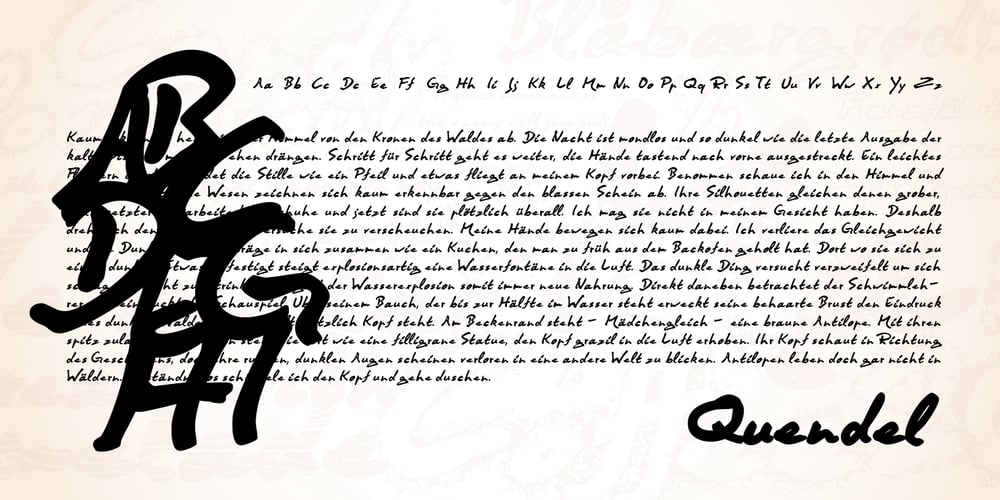
Quendel Font Family was designed by Anita Jürgeleit and published by URW Type Foundry. Quendel contains 6 styles and family package options. Quendel has been expanded to become Quendel Happy Family. Apart from the new Bold weight for easy distinction and emphasis, there are now four other very exciting variants, rendering different writing tools and writing materials. The basic form of Quendel was written with a Japanese bamboo tip and therefore embodies a form letter of natural flow. The new versions show other features that provide the feel of written scripts. While the styles Wood and Crayon include some alternate characters, Q Marking Pen and Q Fingertip, due to their apparently more complex enacted forms, do not need additional alternates without looking stiff or boring. The wood relief of Quendel Wood was created by a freehand wood relief drawn with oiled chalk. Quendel Marking Pen seems to be written with a felt-tip pen soon depleted. At the same time it is also reminiscent of the blooming effect, which we know from photography. The name of Quendel Fingertip suggests what can be seen – someone seems to have written with the finger in a grainy material. One would like to try it himself. The effect of broken lines which can be gained by writing with chalk as reflected in Quendel Crayon. Almost like parched sandy soil, the writing material seems to crumble.